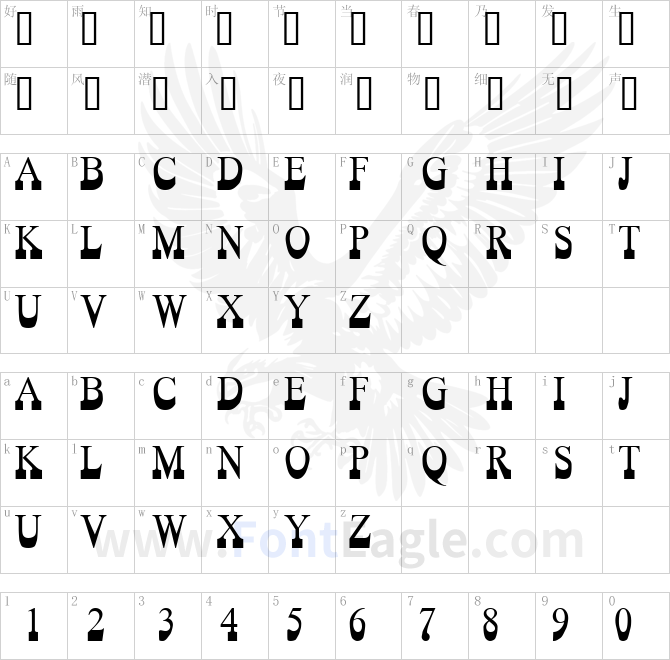
- Font name:Platform Shoe
Platform-Shoe is a great font, widely used in graphic design, single-page menu design, poster design and other fields, and is deeply loved by designers.Platform-Shoe download.